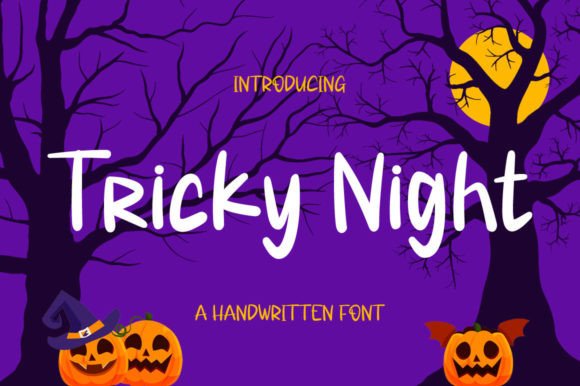
Behold, the Tricky Night Font: A Bewitching Handwritten Creation to Cast Spells on Your Designs
In the realm of fonts, Tricky Night reigns supreme, a captivating creation that weaves a web of enchantment and intrigue. Handmade with the utmost care by Graphix Line Studio, this display font enchants with its delicate strokes and simple elegance, conjuring a world of magic and mystery.
Let Tricky Night cast its spell on your designs, transforming them into captivating masterpieces. Its charming handwritten style evokes a sense of authenticity and realism, adding a personal touch that resonates with your audience. Whether you seek to craft enchanting chalkboard quotes or captivating teaching materials, Tricky Night stands as your perfect companion, ready to weave its magic.
Embrace the allure of Tricky Night and immerse yourself in a world where creativity knows no bounds. Its enchanting flow and captivating curves will entrance your audience, leaving them spellbound by your creations. Let your imagination run wild as you unleash the power of Tricky Night, conjuring designs that shimmer with originality and leave a lasting impression.